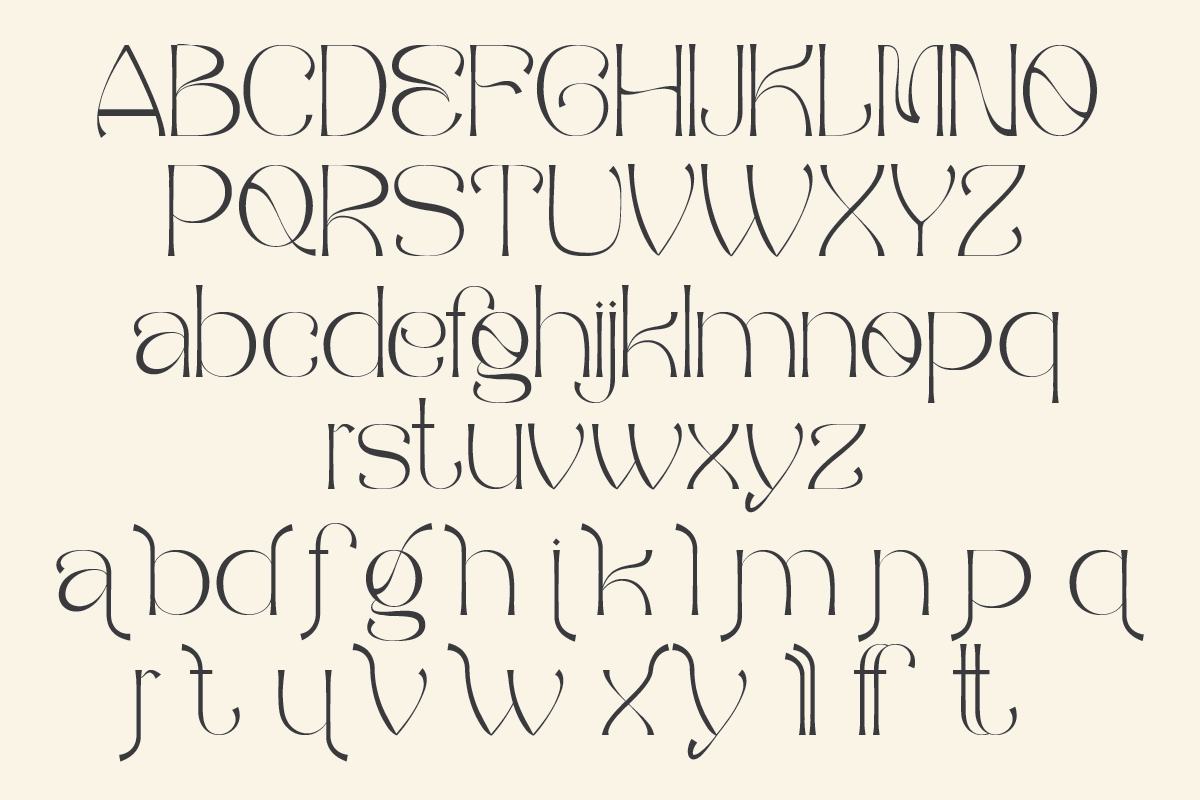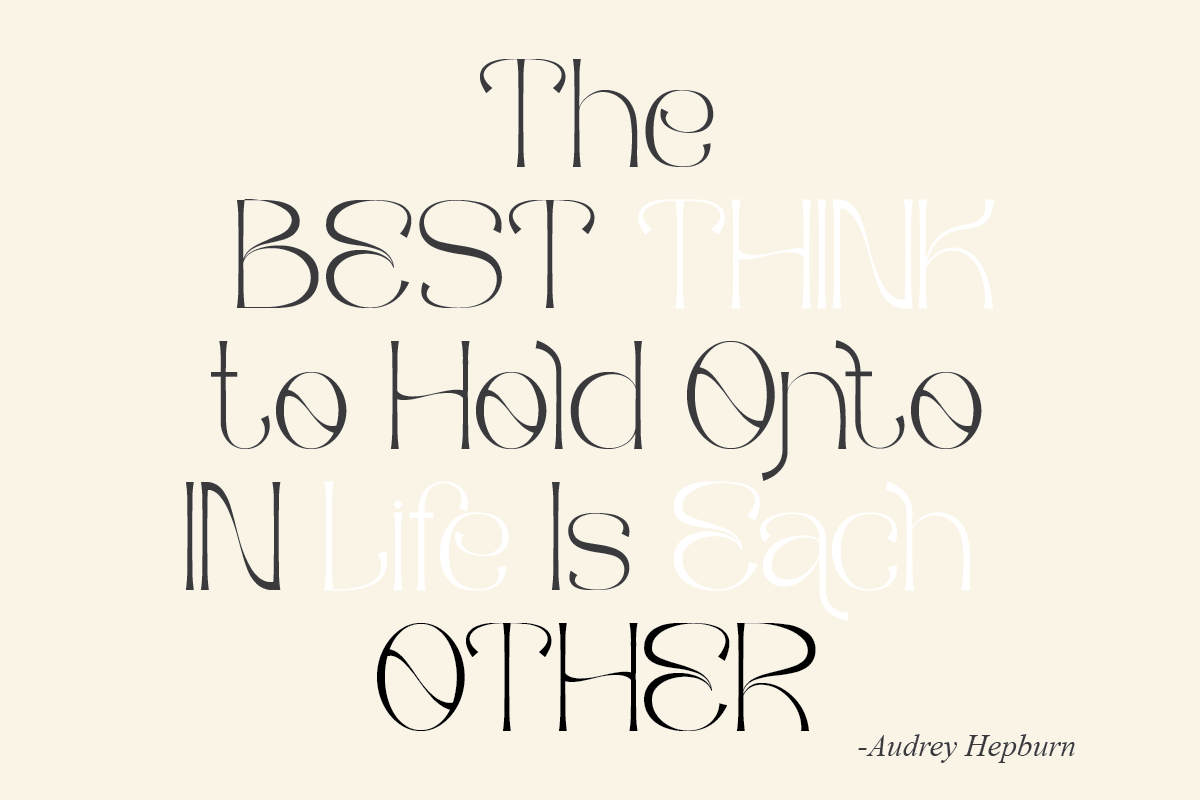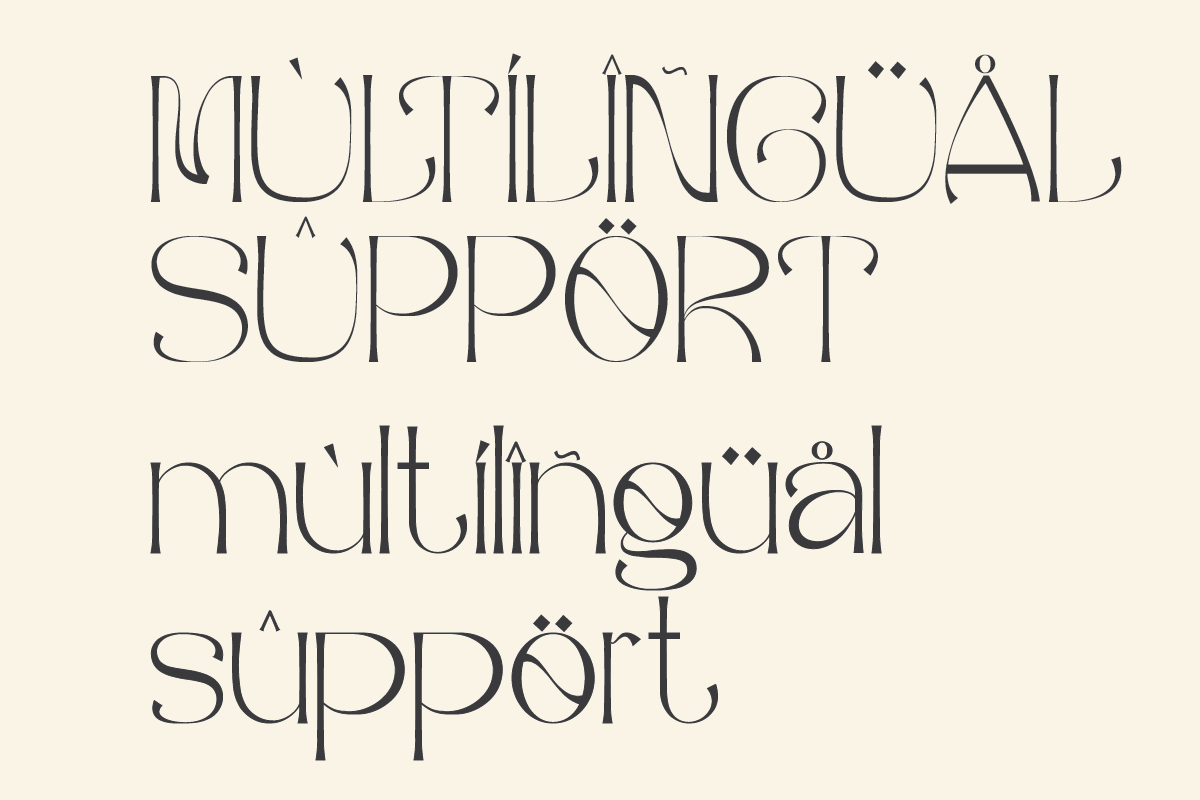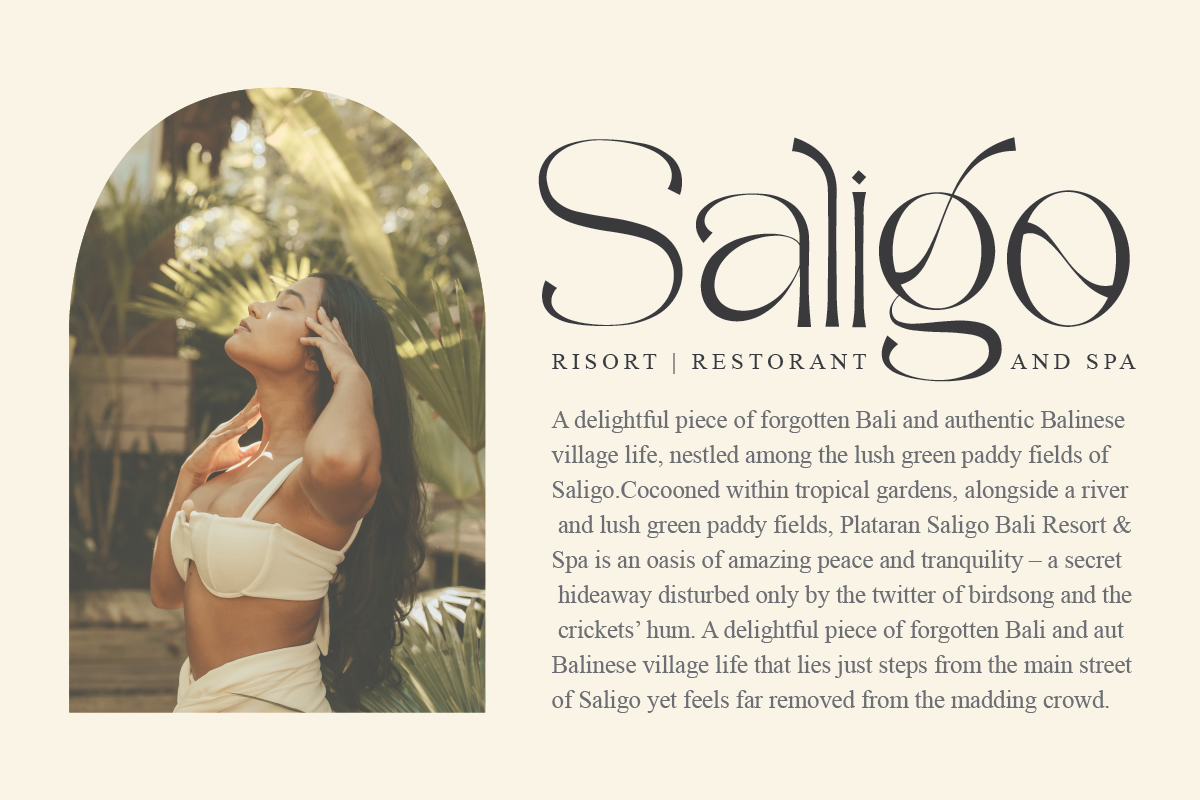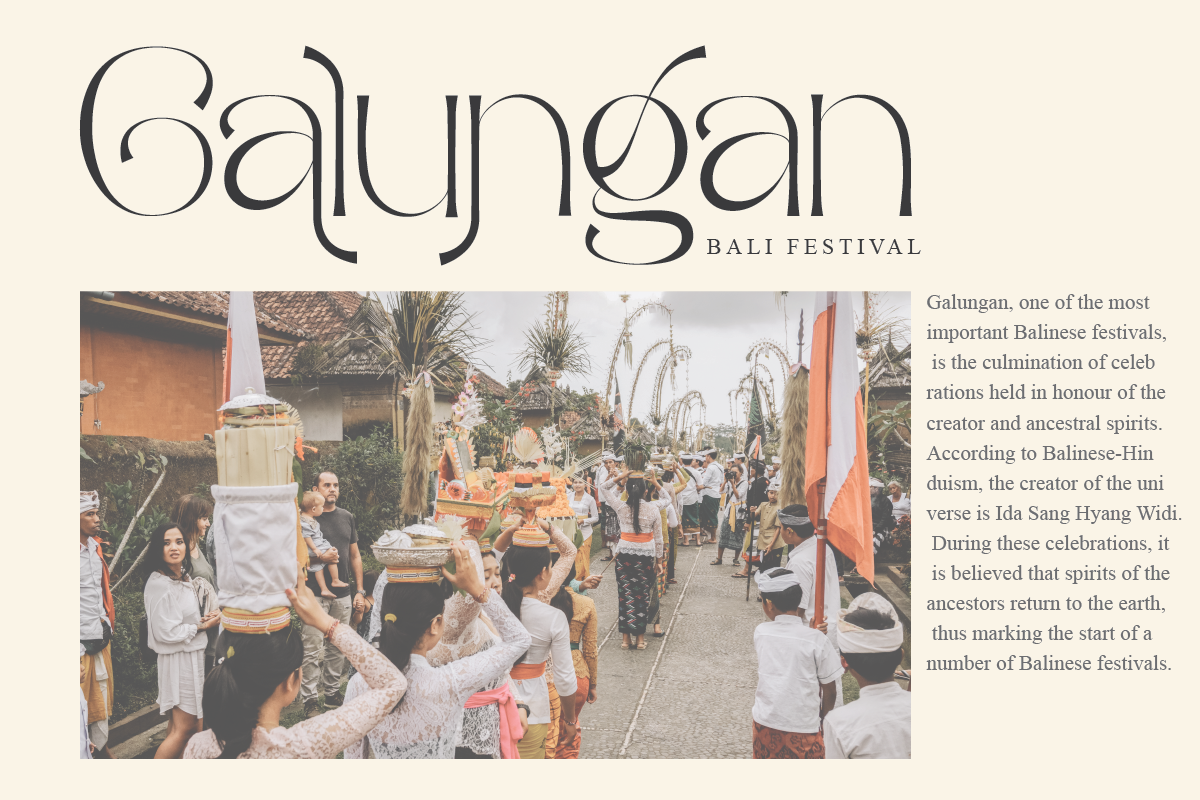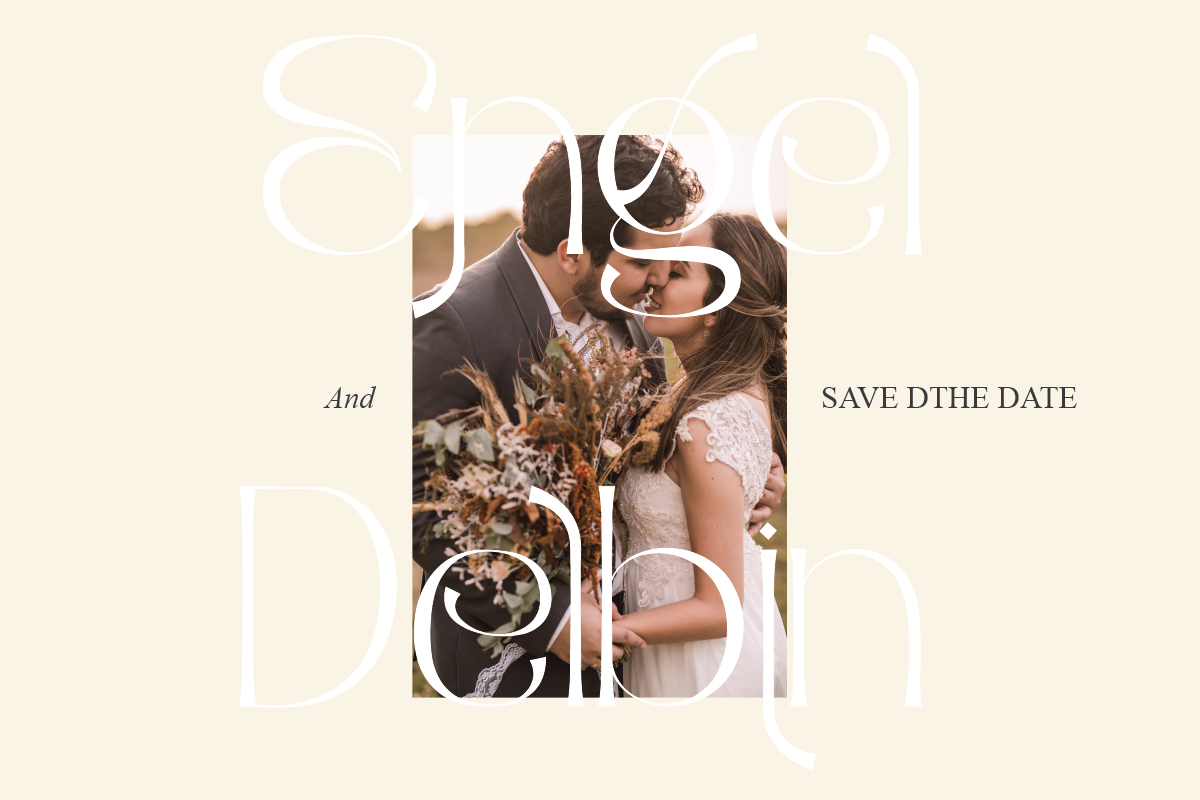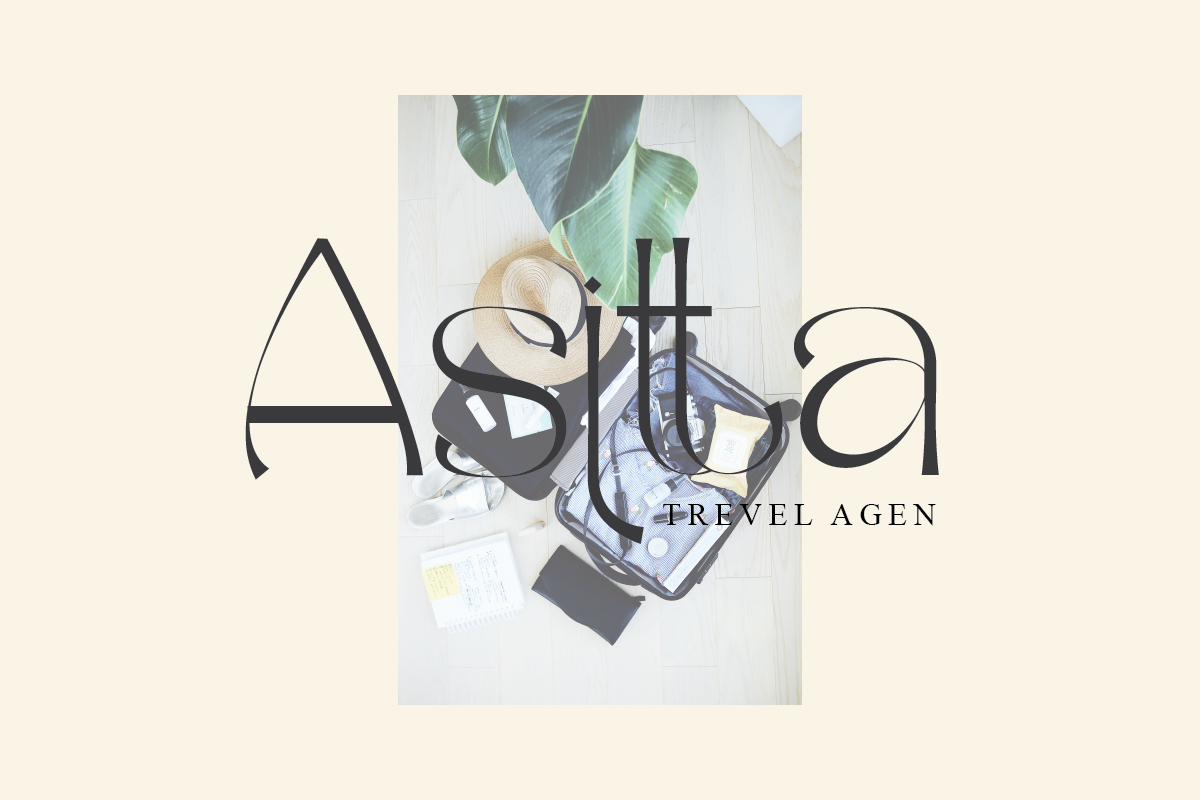
Balliniy
Balliniy semi Modern serif , special glyphs, ornament and multilingual support. It's a very versatile font that works great in large and small sizes. Perfect for editorial projects, Logo design, Clothing Branding, product packaging, magazine headers, or simply as a stylish text overlay to any background image.
Balliniy Features : Multilanguange Alternates PUA Encoded Ligatures